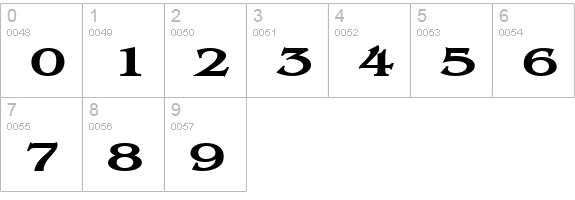
Bangle Extended Bold is a strong, high-contrast, extended-width variant in the Bangle typeface family \xE2\x80\x94 well suited to headlines, attention-grabbing titles, and strong calls-to-action.
Bangle Extended Bold font exudes a sense of modernity and sophistication with its strong, bold letterforms that command attention. The extended design of this typeface adds a unique flair to any project, making it perfect for headlines, posters, and branding materials. The sleek lines and sharp angles of Bangle Extended Bold font give it a contemporary edge, while still maintaining a sense of elegance. What's even better is that Bangle Extended Bold font is available for free download at FontsMarket.com, allowing you to easily incorporate this striking typeface into your designs without any hassle. Whether you're looking to make a statement or add a touch of boldness to your projects, Bangle Extended Bold font is the perfect choice. Let your creativity shine with this versatile and eye-catching font that is sure to make a lasting impression.